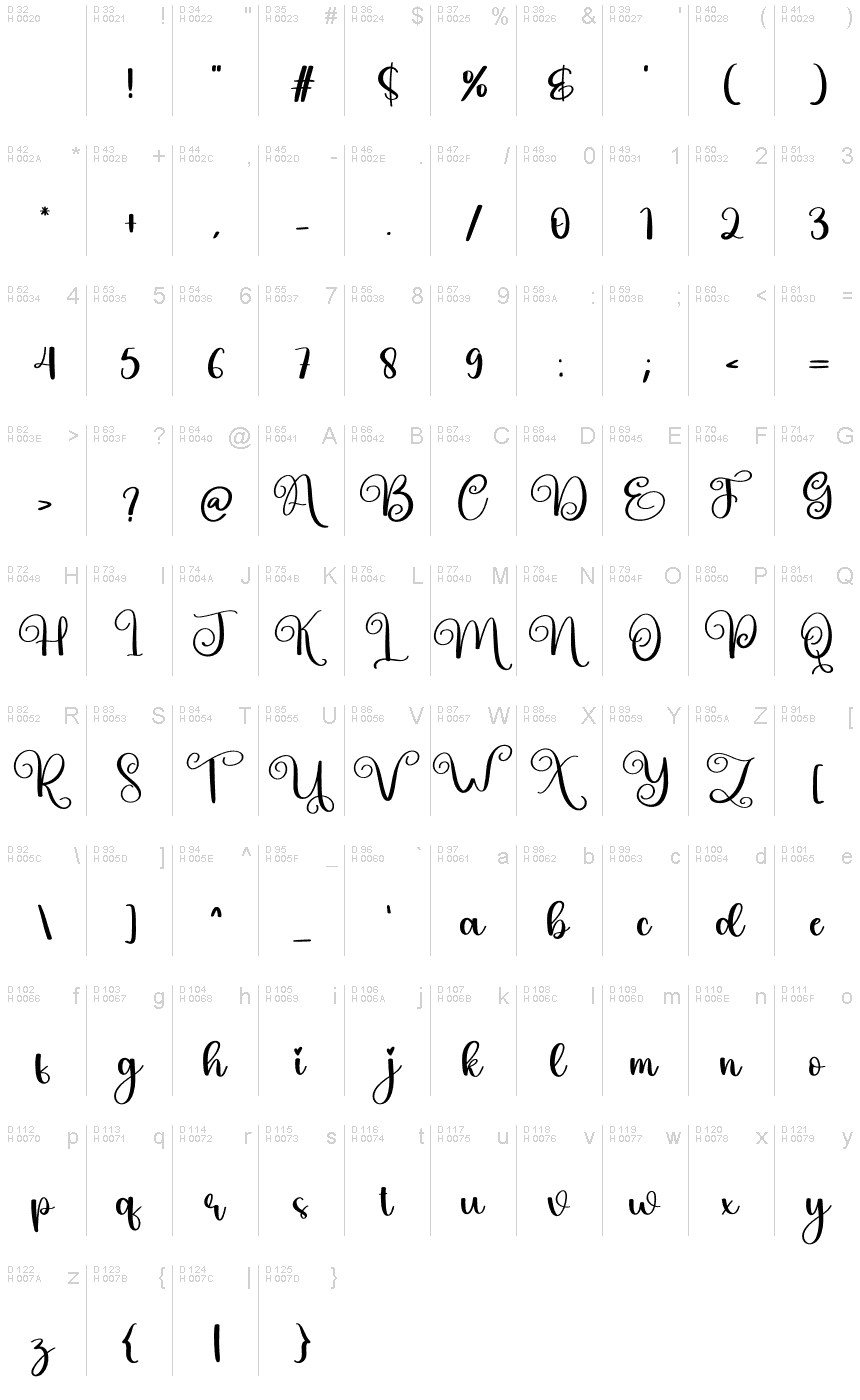
Mushroom
Mushroom, a captivating calligraphy font by Scratchones, adds an elegant touch to any project. With its semi-light weight and graceful strokes, this font is perfect for wedding invitations, feminine branding materials, and delicate product packaging. Enhance your blog headers or social media graphics with Mushroom's artistic flair. Its curvaceous letterforms and organic flow lend themselves beautifully to nature-inspired designs such as botanical illustrations or eco-friendly campaigns. Let Mushroom take your creative endeavors to new heights with its enchanting charm and timeless appeal.